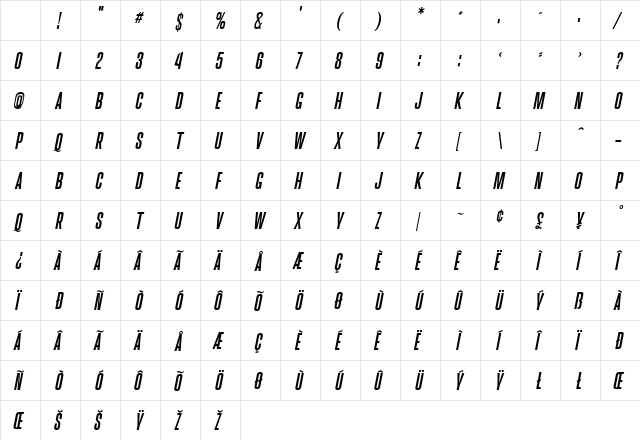
Complete Brusio Italic glyph index. Displaying only characters natively supported by Brusio Italic font.
Brusio is a composed and adaptable typeface that performs quietly and consistently across a wide range of design contexts. The slanted form adds forward momentum and visual energy.
Pro Tip: Use Brusio for emphasis, pull quotes, and subheadings where its slanted energy can add rhythm to the layout.